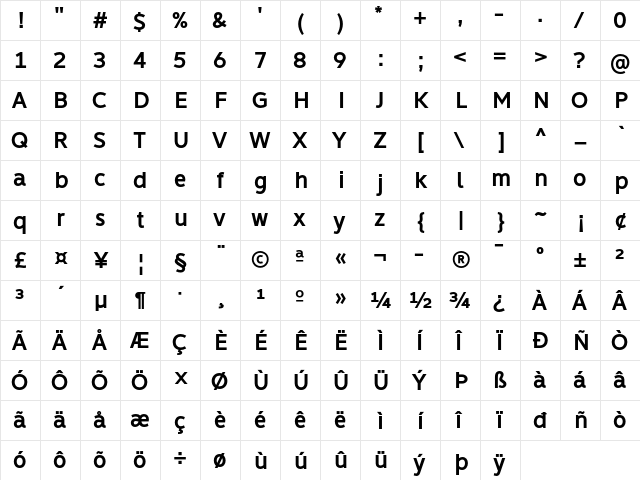
Learn Share Colaborate Bold Font Preview
Learn Share Colaborate Bold
Learn Share Colaborate Bold Font Details
| Foundry | 7NTypes |
| Designer | Situjuh Nazara |
Design Context for Learn Share Colaborate Typeface
Learn Share Colaborate is a composed and adaptable typeface that performs quietly and consistently across a wide range of design contexts. The heavy weight commands attention and anchors typographic hierarchies.